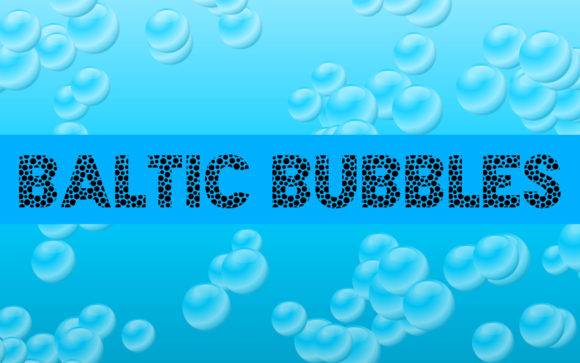
Baltic Bubbles Font for Crafting, Logos and Print Projects
Baltic Bubbles Font is a creative typeface featuring rounded edges and bubbly forms, perfect for crafting projects, logo design, and print materials. Its approachable style makes it a go-to font for family-friendly products, kids' branding, and handmade goods. Additionally, Baltic Bubbles Font pairs well with other fonts, allowing for versatile combinations that enhance visual appeal. Designers seeking to infuse a playful touch into their work often turn to the barbarelo font for creative projects, further expanding the possibilities for innovative typography. This font's unique character brings a sense of joy and enthusiasm, making it ideal for promotional materials and engaging advertising campaigns.
- Crafters producing handmade goods or decor
- Designers building kid-friendly brand identities
- Print professionals creating packaging or signage
- Teachers and parents designing learning tools
- Event stylists preparing party printables
- Personalized stickers and vinyl labels
- Party invitations and printable signage
- Children's apparel and toy packaging
- Logo designs for family-focused brands
- Decorative wall prints and classroom posters
- Playful style with strong visual personality
- Print-ready and cutting-friendly outlines
- Works across crafting, branding, and packaging
- Great for both professional and DIY creatives
Q: What type of font is Baltic Bubbles?
A: Baltic Bubbles is a rounded, playful display font made for crafting, branding, and print-based designs with a friendly tone. Its whimsical curves and bold letters make it an ideal choice for projects targeting a youthful audience, while still maintaining versatility for a variety of uses. The baltic wave font features and usage encompass everything from invitations to product packaging, ensuring that all your designs evoke a sense of fun and approachability. Perfect for both digital and print media, Baltic Bubbles adds a unique character to any creative endeavor.
Q: Is this good for printing or cutting projects?
A: Absolutely. Its rounded structure is ideal for clean vinyl cuts, print projects, and merchandise design.
| Feature | Baltic Bubbles Font | Generic Sans Serif Font | Generic Script Font |
| Visual Style | Rounded, bubbly, playful | Minimal, modern, neutral | Flowing, decorative, romantic |
| Best For | Crafts, kids’ branding, printables | Web content, documents | Cards, invitations, quotes |
| Ease of Use | Easy for all skill levels | Beginner-friendly | May require style adjustment |